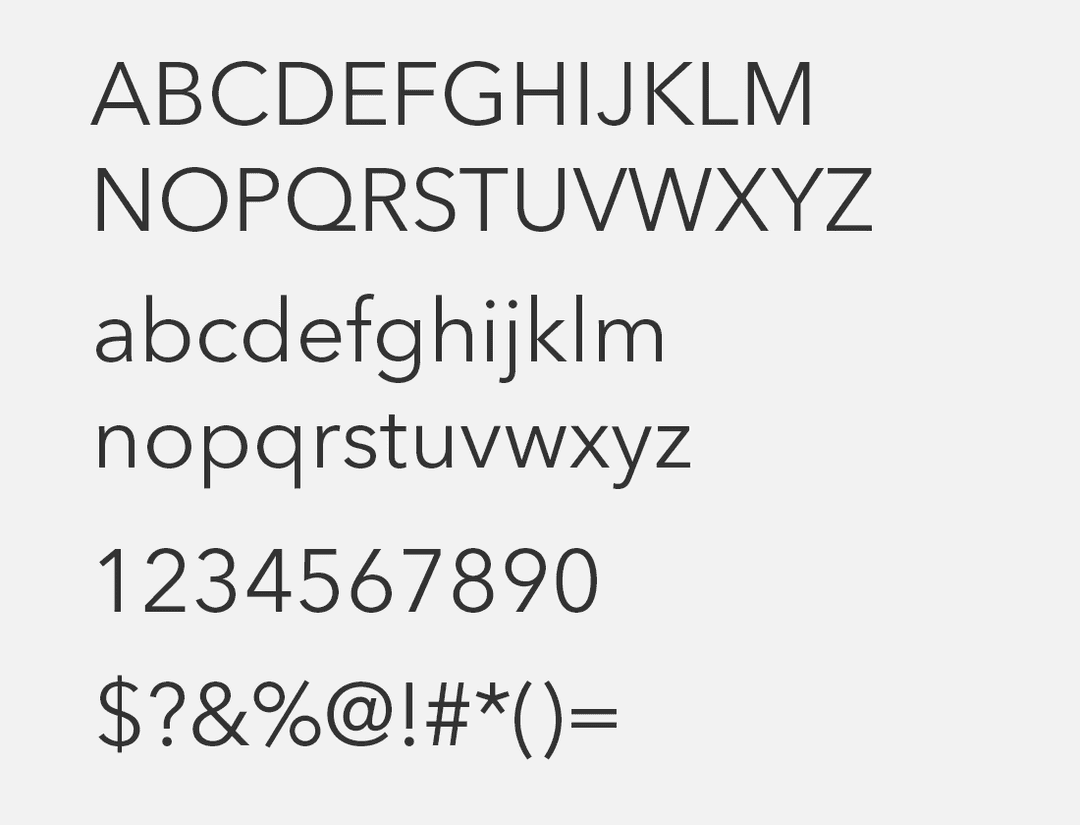
Avenir Next Font Family
Avenir Next Pro is a rework of classic designs for the digital age. Born after countless hours of research, it is designed to provide a new type of excellence in sans-serif fonts. Consequently, it has a level that existing font families cannot match, eventually giving us access to superior families of typography.